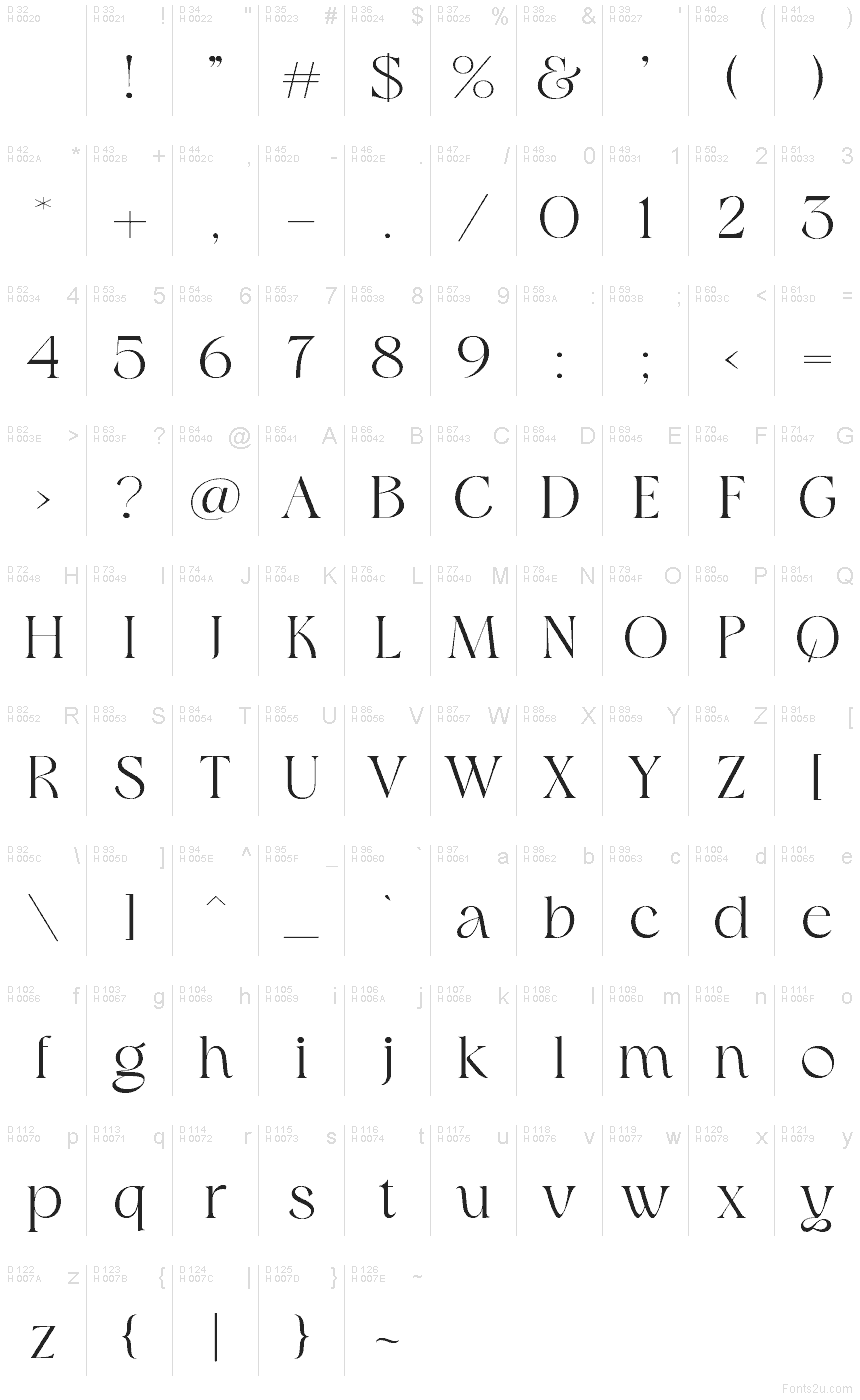
OPHELIA-Regular
Ophelia font by VampStudio is a sleek and modern serif font whose visual characteristics leave an impressive overall feel. Its refined style stands out with its elegance, high contrast, and professional finish that make any design exceptional. The creator made it available for free usage to encourage users to share artwork of unlimited originality.
Ophelia will suit classic book covers, magazine titles, branding projects like logos and business cards as well as wedding invitations. Other possible use cases with this astounding font include e-books covers, advertisement posters, vintage labels/packaging designs in addition to many others.